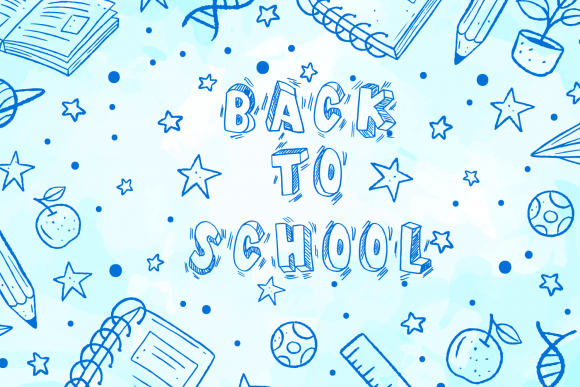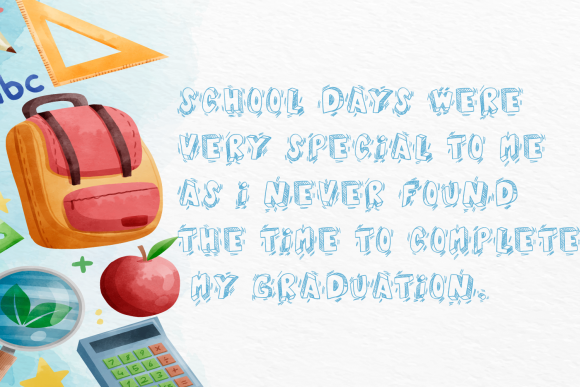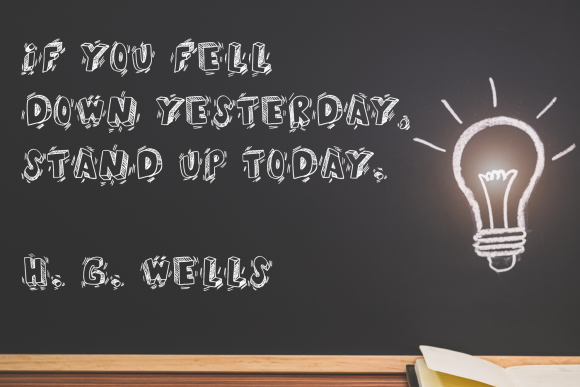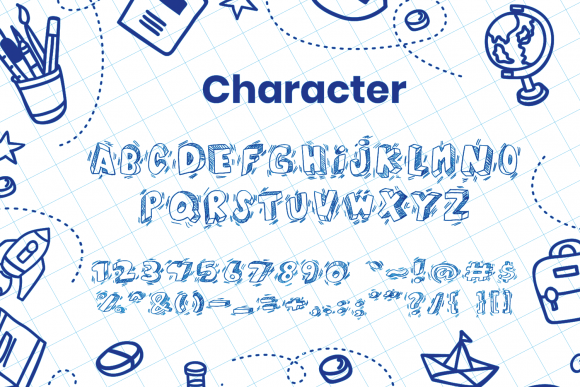
Introduction to People Book Font Font
Fonts play a crucial role in design, and the People Book Font font is a typeface that brings both character and versatility to any project. Whether you’re working on a branding project, a website, or a print design, the People Book Font font offers a unique style that can elevate your work.
People Book is a sweet and friendly 3D outlined display font.
It embodies fun, uniqueness and authenticity This dazzling font will turn any creative idea into a standout.
Key Features of People Book Font Font
Why Choose People Book Font Font?
The People Book Font font is more than just a typeface – it’s a design tool that helps you communicate your message with style and clarity. Its unique character set and versatile design make it suitable for a wide range of applications, from elegant invitations to bold headlines.
With its carefully crafted letterforms and balanced proportions, the People Book Font font ensures readability and visual appeal across all mediums.
What makes People Book Font font special?
The People Book Font font stands out with its unique design, exceptional readability, and versatility across various design applications.